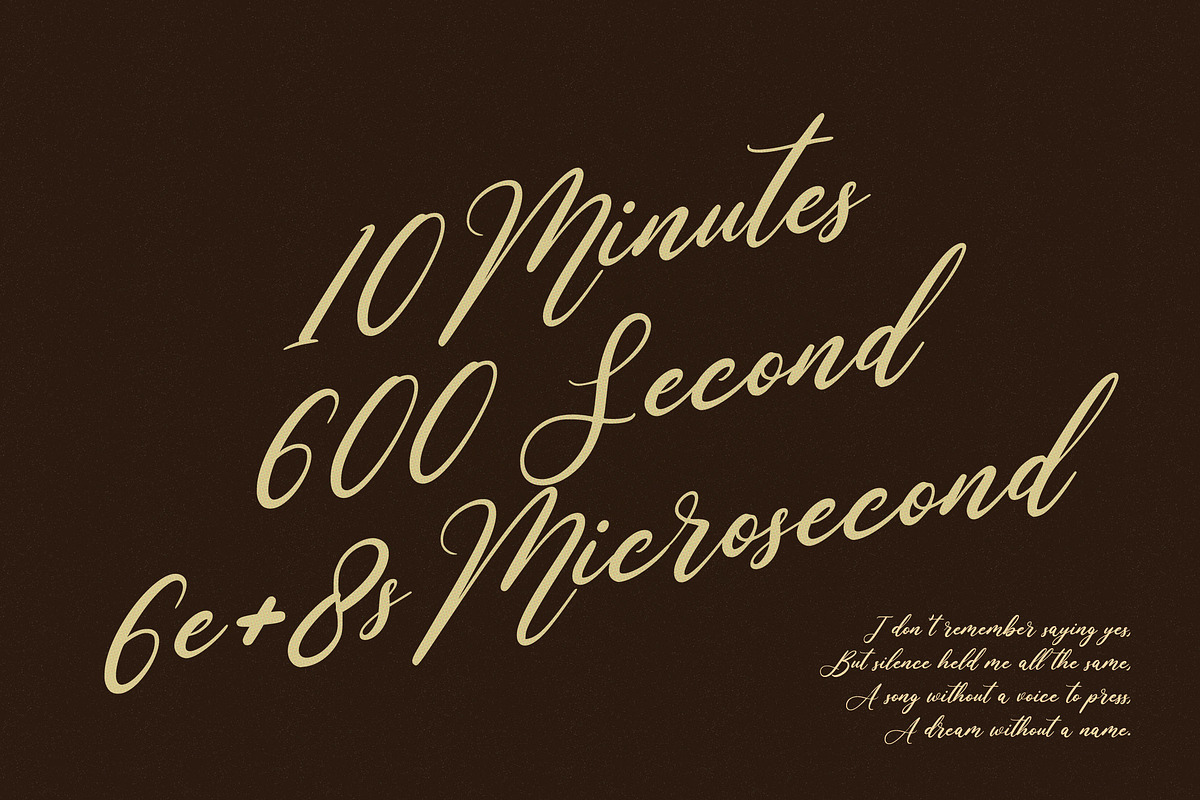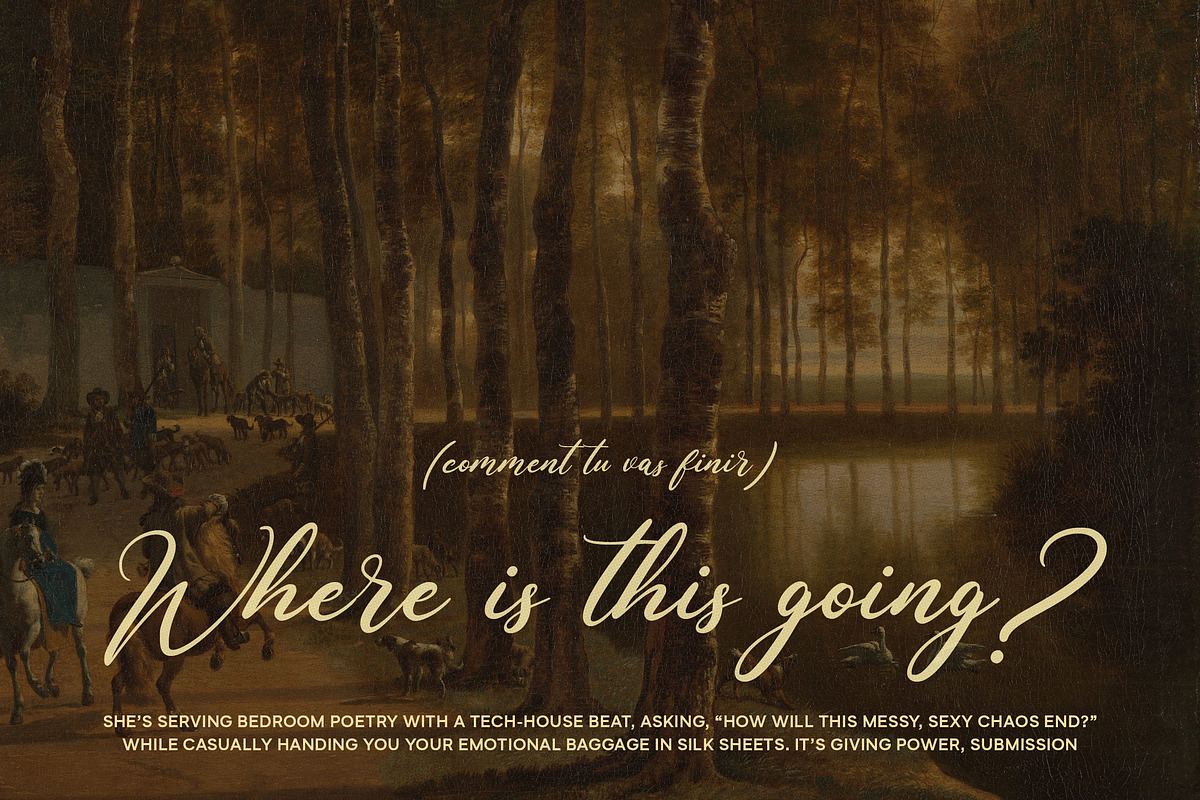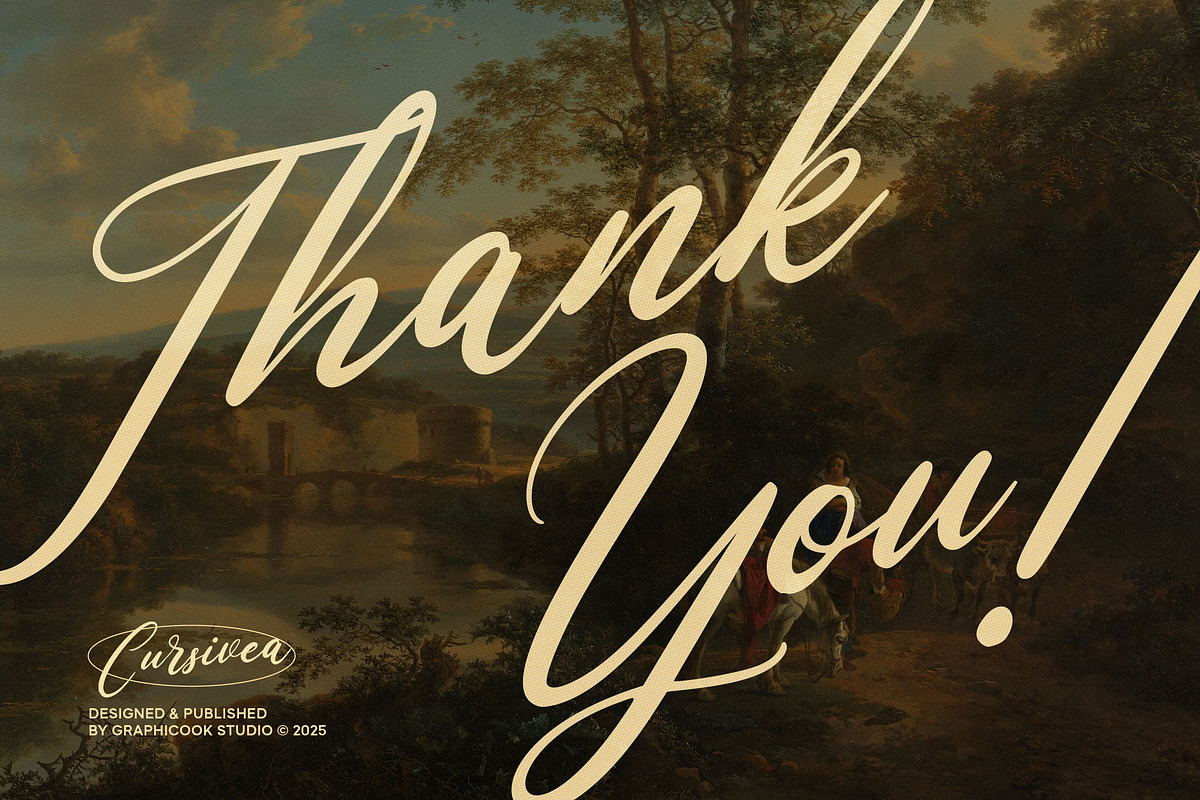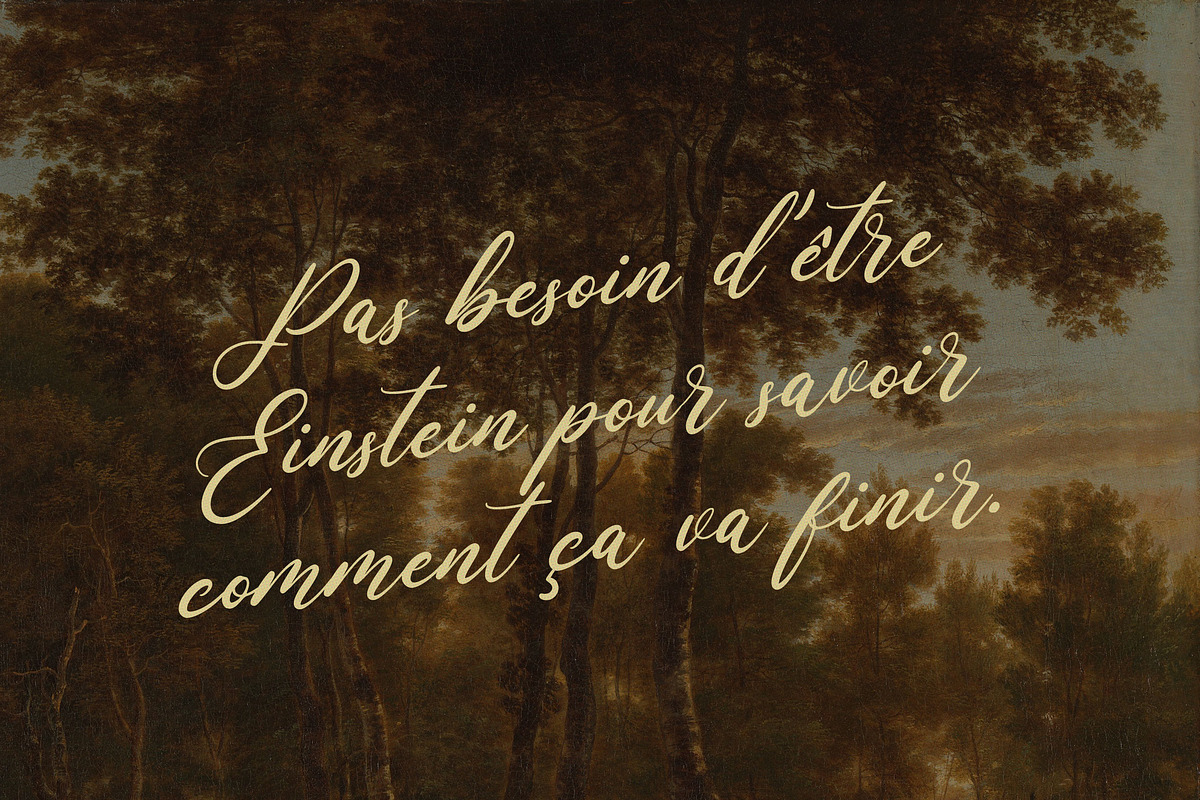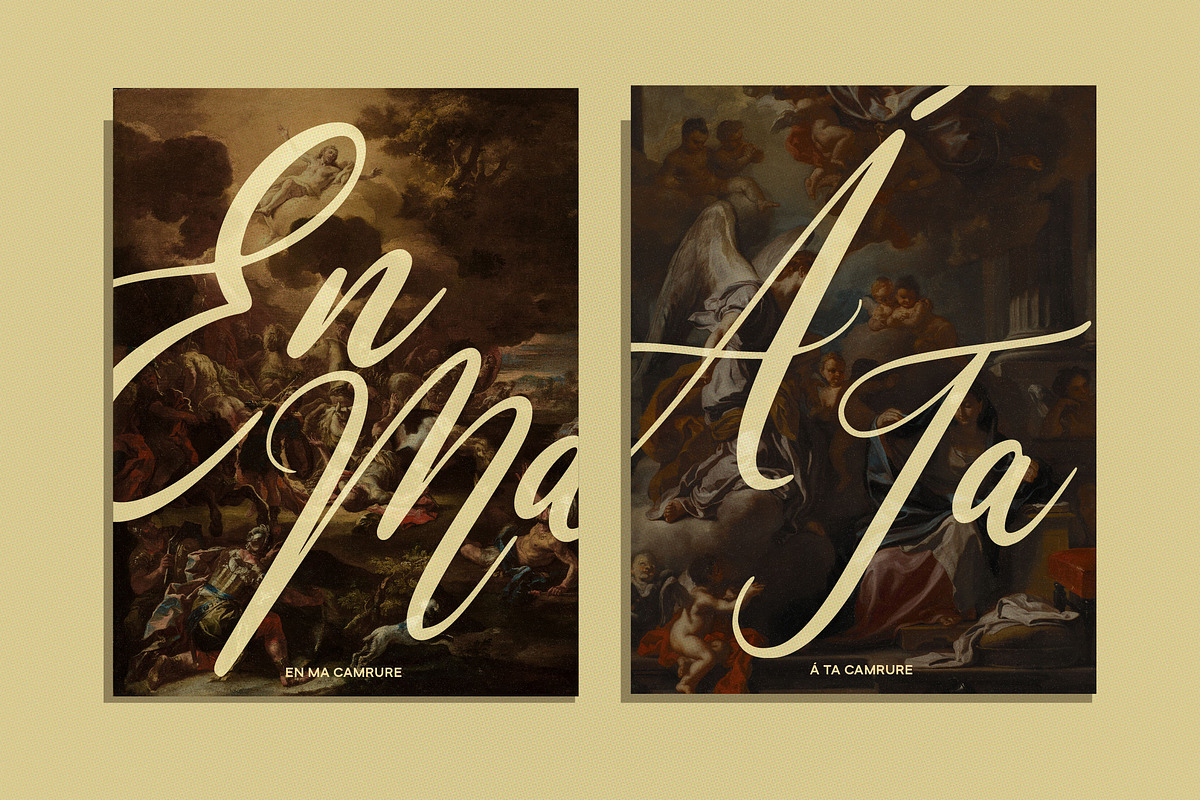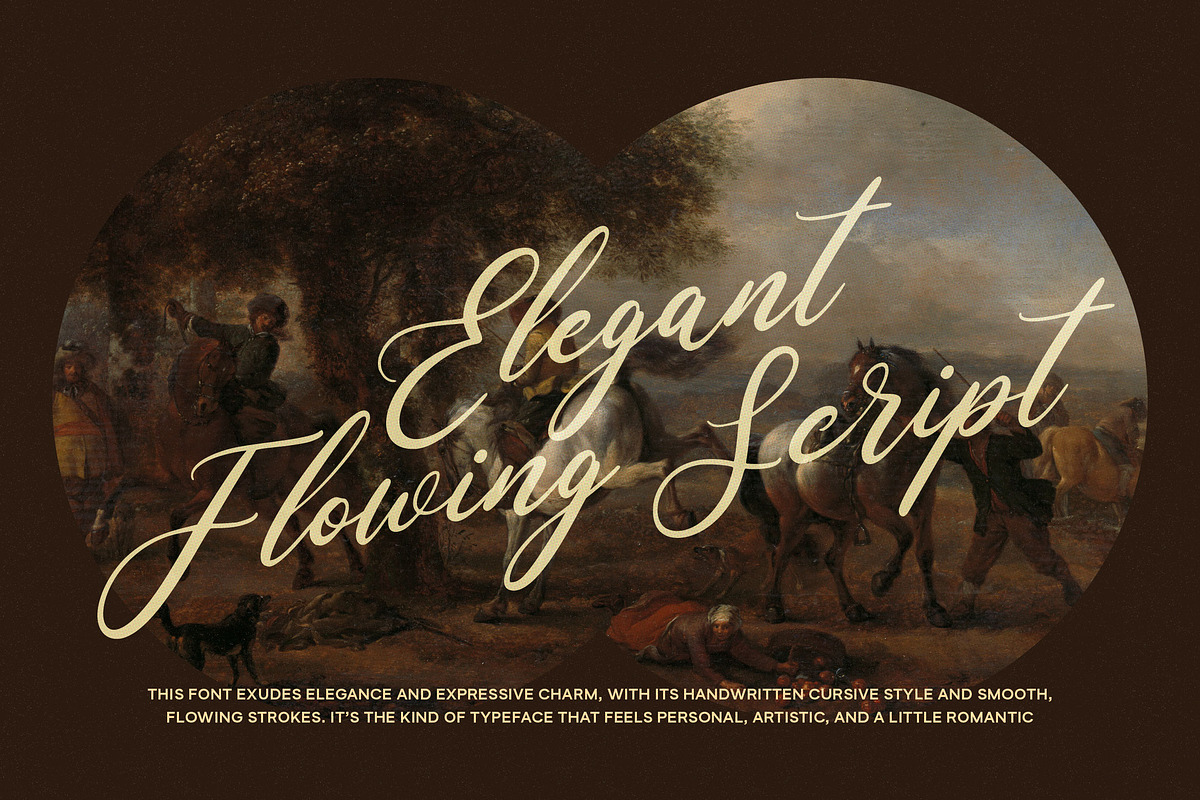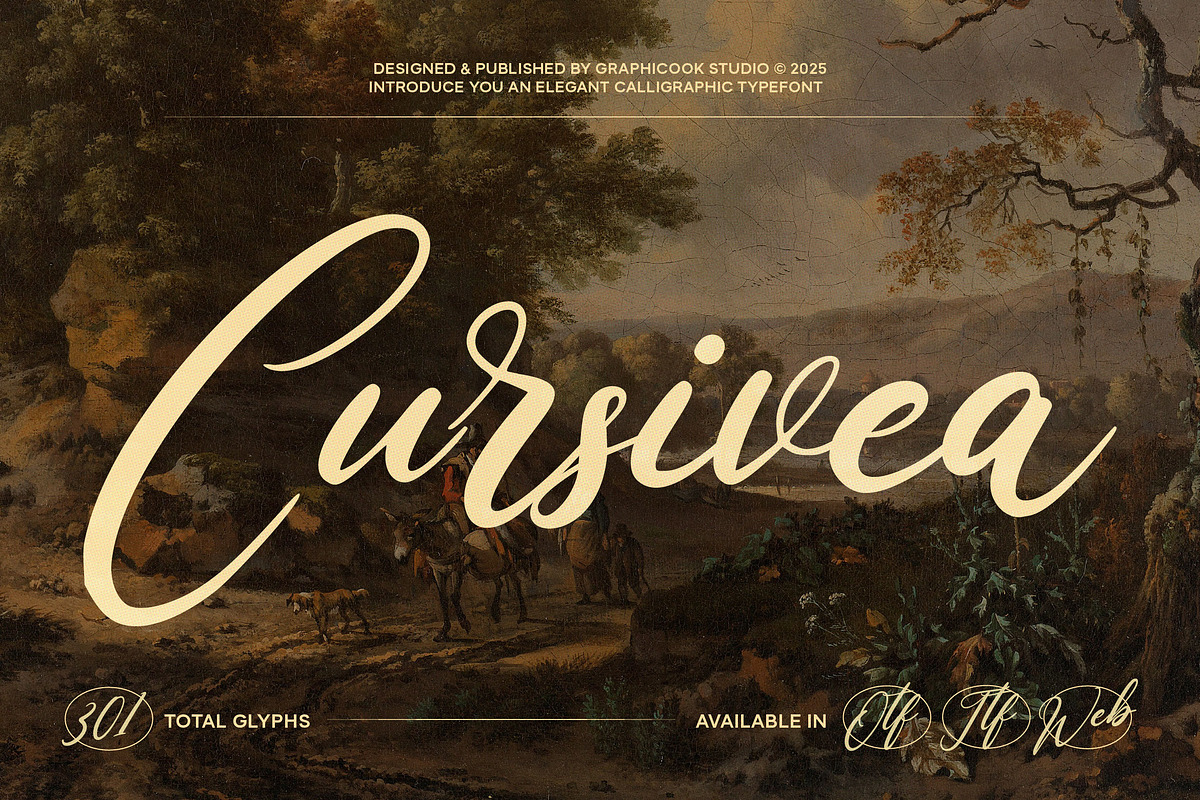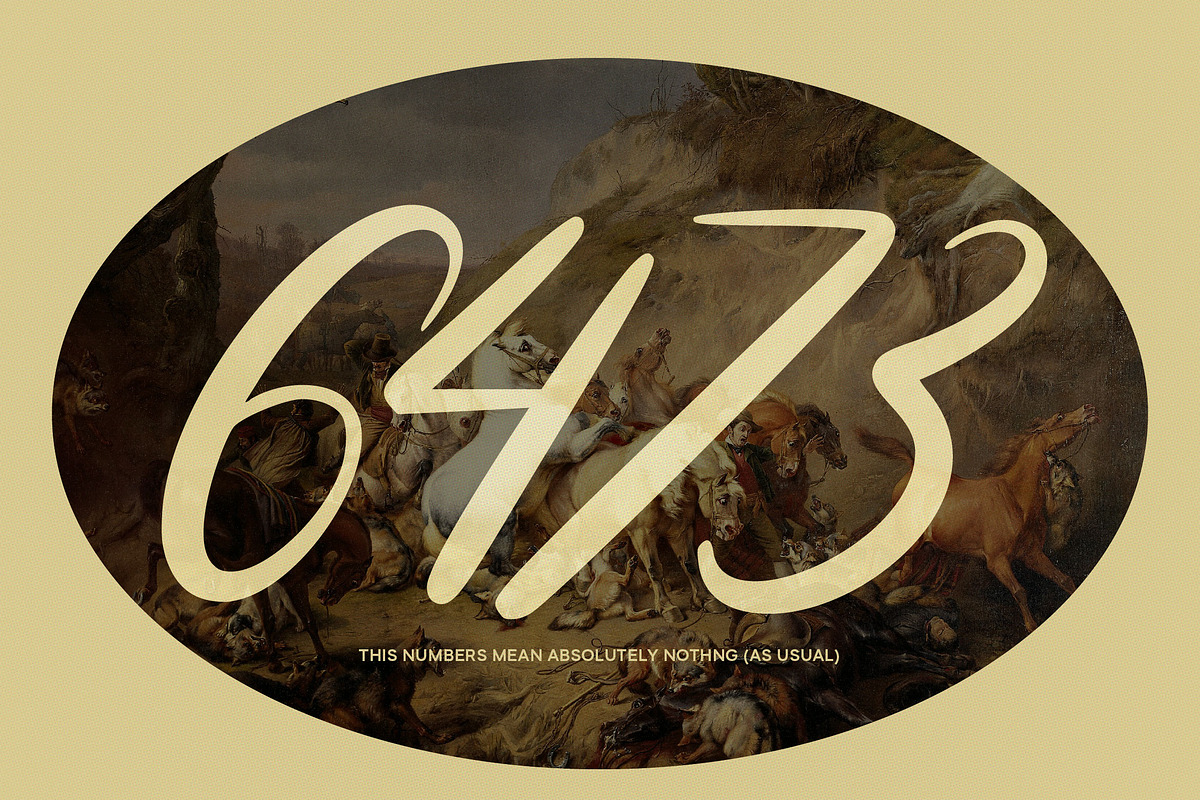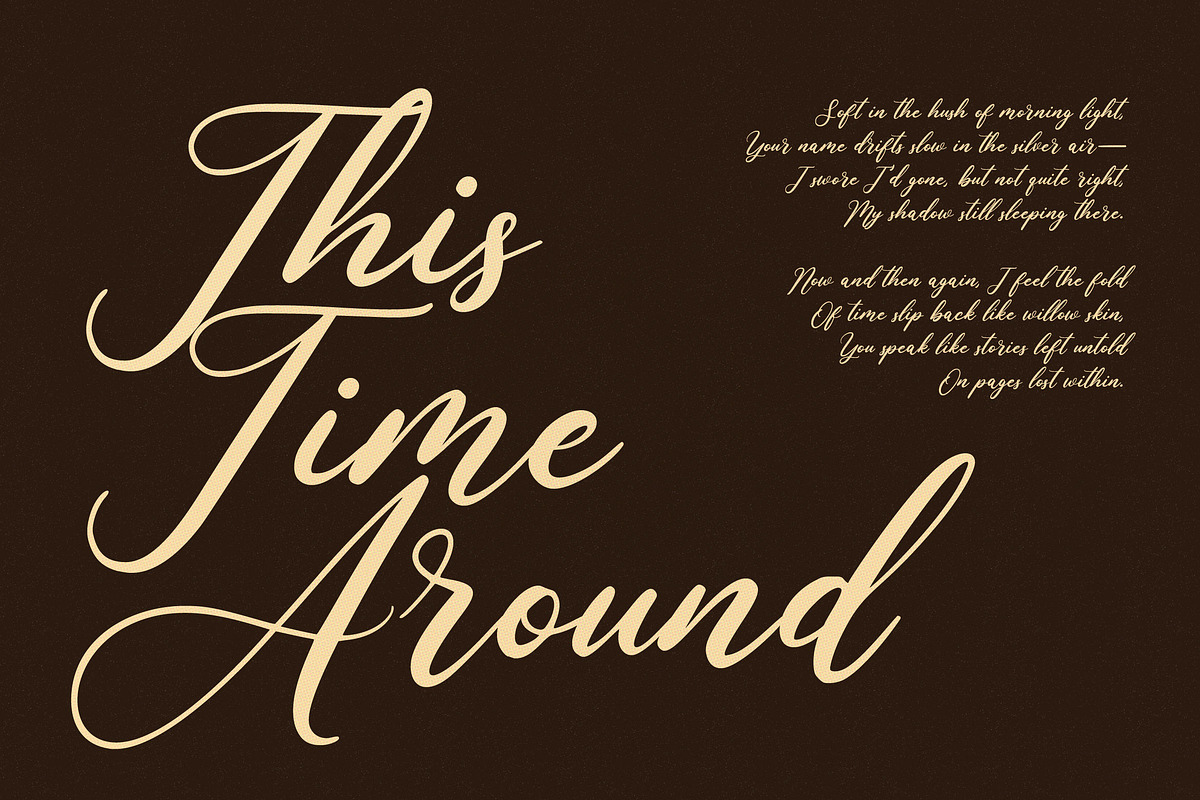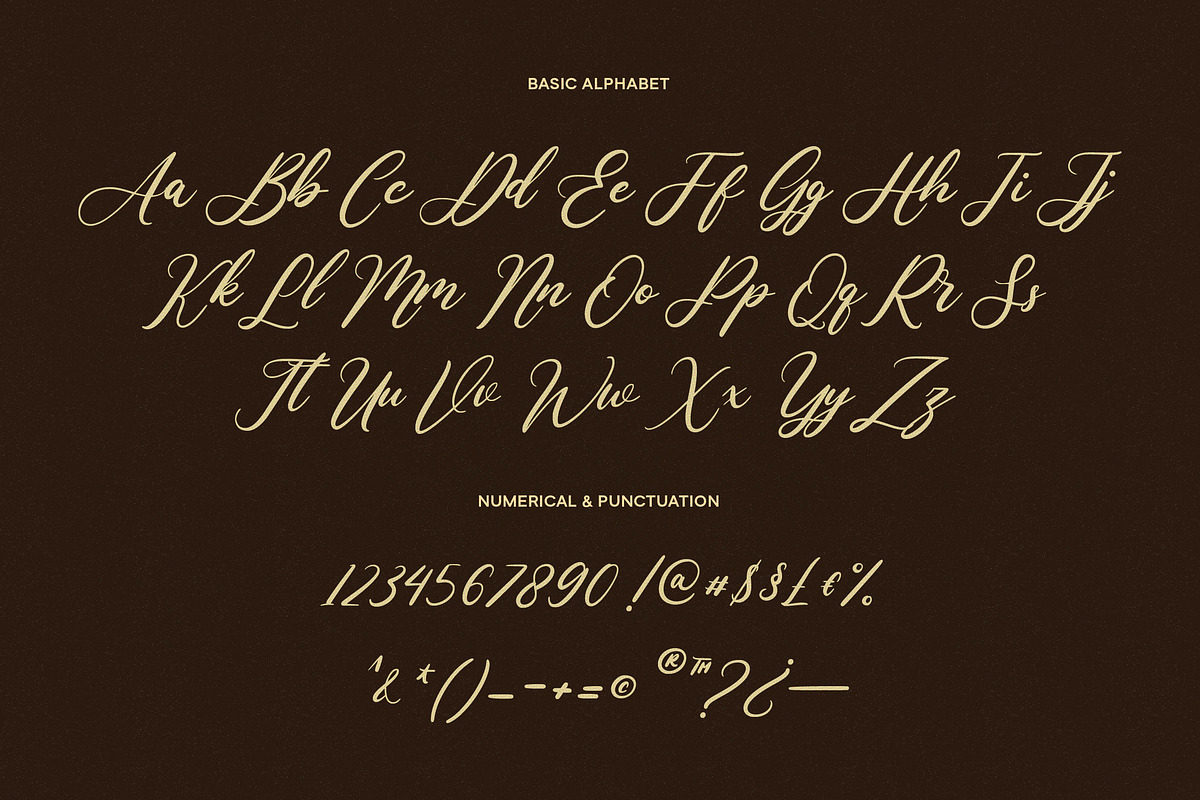
Cursivea
Cursivea is a script font with elegant, pen-like strokes that create a classic handwritten impression. Ideal for wedding invitations or vintage-themed designs.
It is perfect for headlines, logotypes, magazines, packaging, quotes, movies, games, cover albums, book covers, and flyers, it's a perfect solution for creating eye-catching designs that stand out in any context.